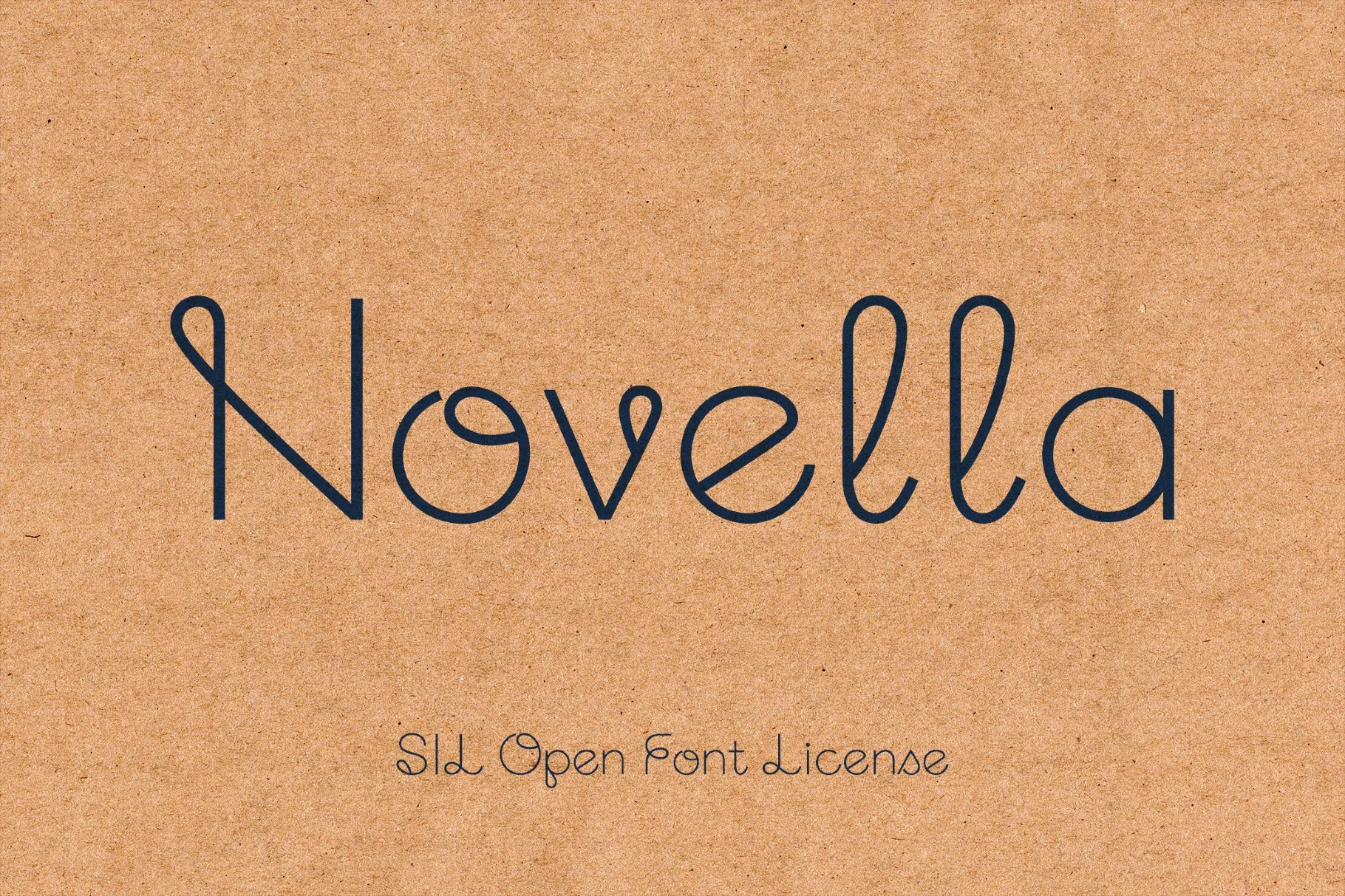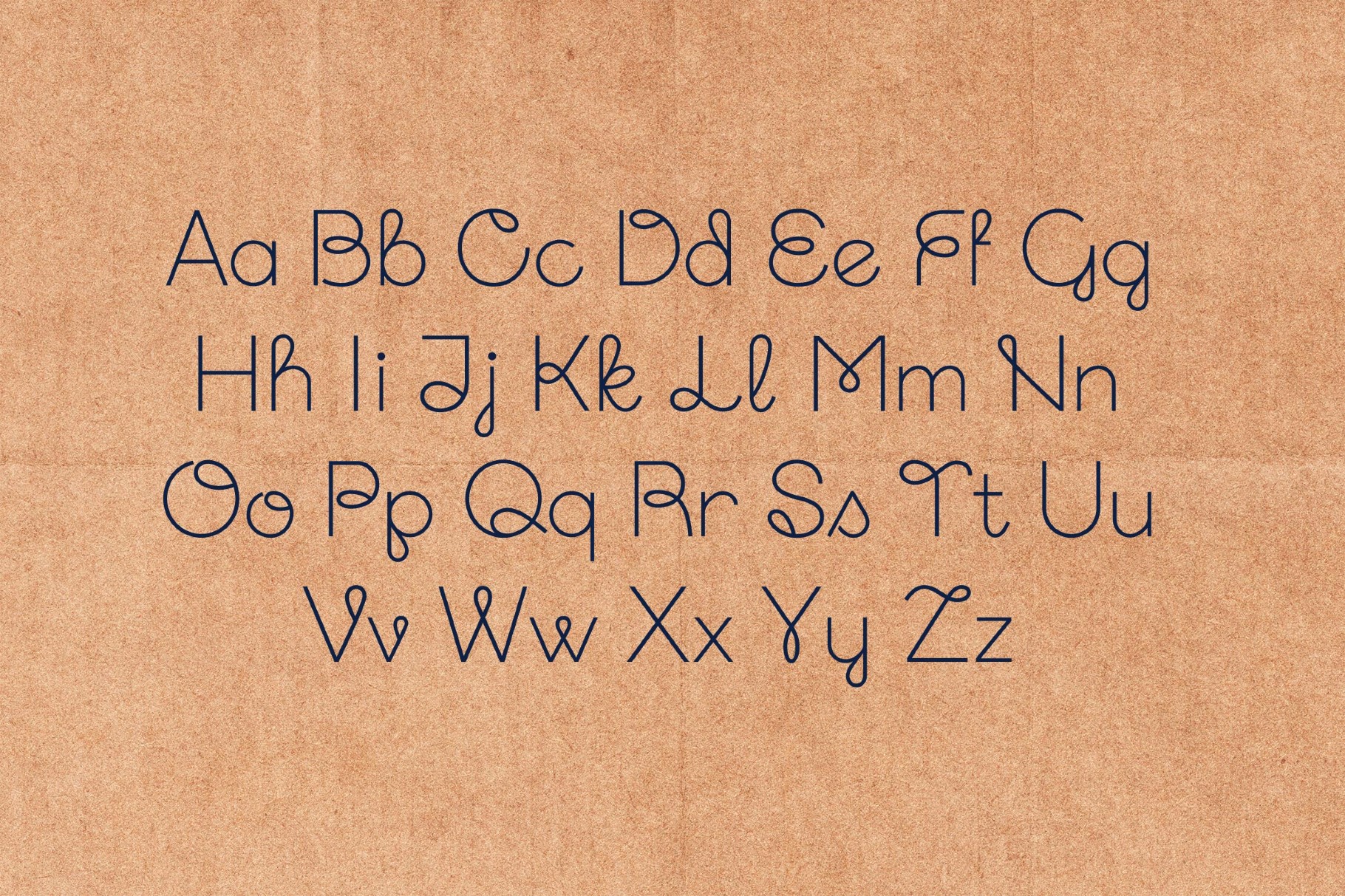
Novella Font
Novella is a monolinear display sans with the poise of cursive workbooks and the clean discipline of mid-century geometric lettering, giving it a refined rhythm that's literary and graphic at once. It resorts to old-school summer camp & postcard fonts — which makes it a fit for book covers, editorial titles, poster headlines, logo work, packaging, invitation design, and social media graphics.